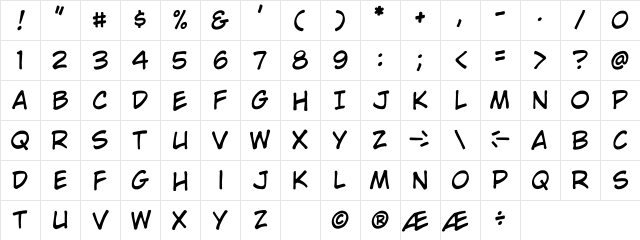
Complete CCWildWords Roman glyph index. Displaying only characters natively supported by CCWildWords Roman font.
CCWildWords is a composed and adaptable typeface that performs quietly and consistently across a wide range of design contexts.